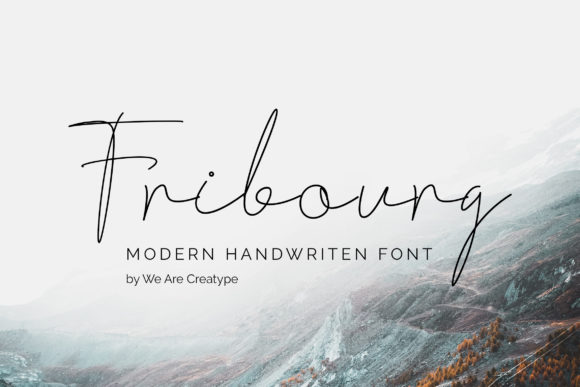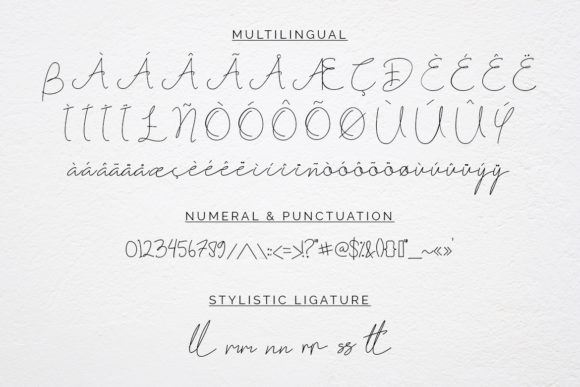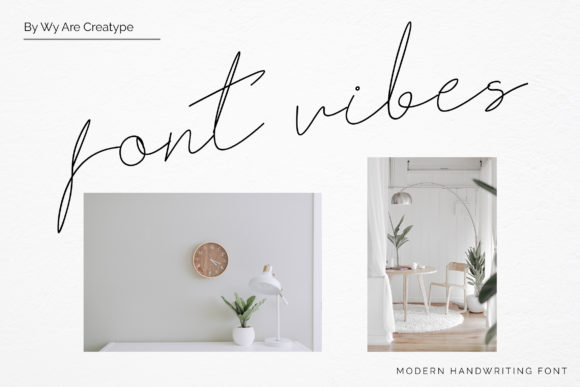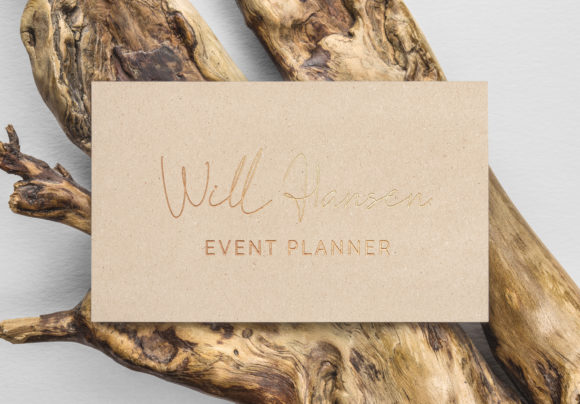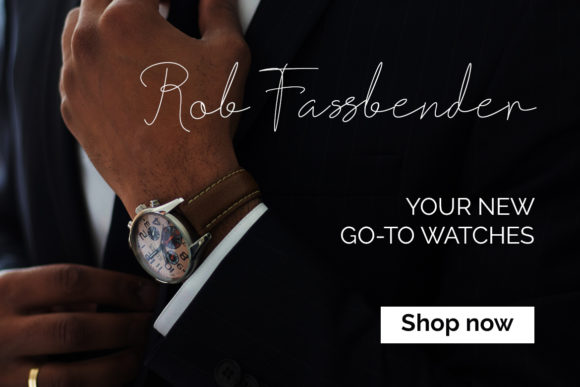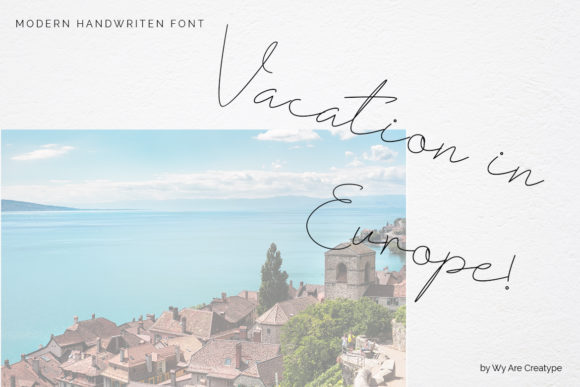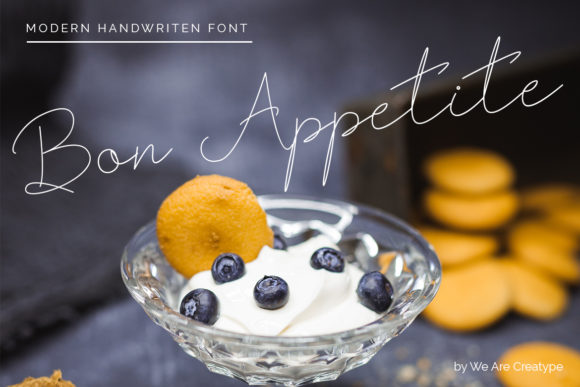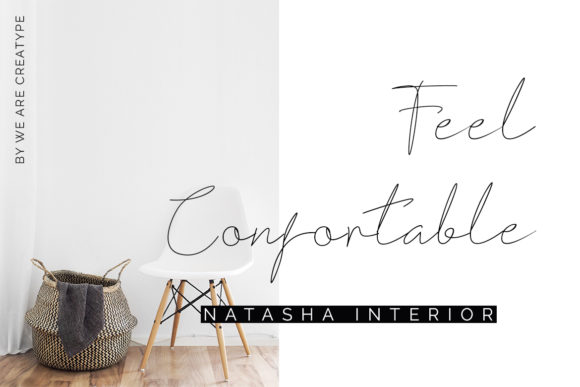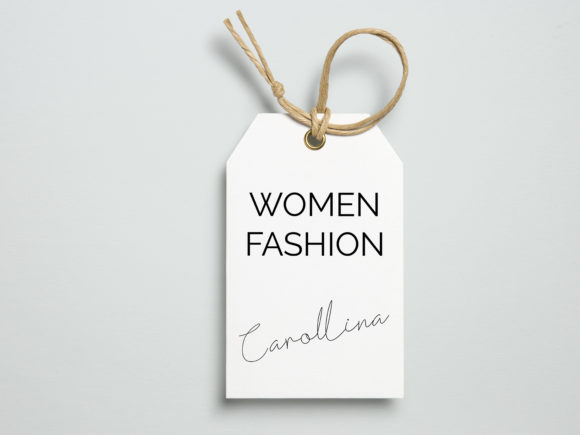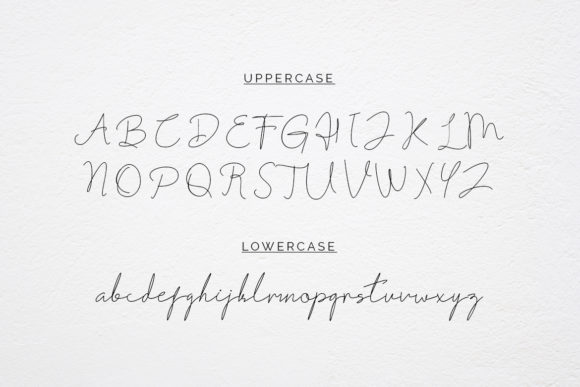
HomeScript FontsFribourg Font Script Fonts Fribourg Font FacebookXPinterestWhatsApp Fribourg Font Poster 2 Fribourg Font Poster 3 Fribourg Font Poster 4 Fribourg Font Poster 5 Fribourg Font Poster 6 Fribourg Font Poster 7 Fribourg Font Poster 8 Fribourg Font Poster 9 Fribourg Font Poster 10 About Fribourg Font Fribourg is the perfect font for giving your designs a handcrafted feel. DOWNLOAD NOW People also explored Monogram Craft Font Lopher Font Orchid Flower Font Vincente Barley Font Hippy Holidays Font Chesterville Font Robotic Stations Font Script Machine Font 305 0 TagsFribourg Font Previous articleVigrand FontNext articleKaizena Font LEAVE A REPLY Cancel reply Comment: Please enter your comment! Name:* Please enter your name here Email:* You have entered an incorrect email address! Please enter your email address here Website: Save my name, email, and website in this browser for the next time I comment. Personal Use Free Angista Script Personal Use Free Read more about this font GoodFay Personal Use Free Read more about this font Aline Personal Use Free Read more about this font Amillina Monogram Personal Use Free Read more about this font BLOG Best Fonts for T-Shirt Design – Top 2025 Picks In 2025, t-shirt design has become more than just fashion—it's a form of self-expression. Whether you're... Where to Buy American Fonts Online in 2024 Best Fonts for YouTube Videos: Make Your Thumbnails Stand Out Top 10 Handwritten Fonts That Elevate Your Designs